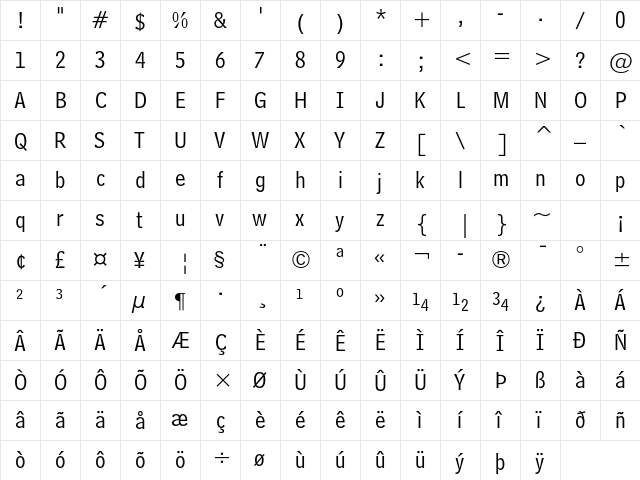
Bell Centennial Std Address
| Style | Address |
| Designer | Matthew Carter |
Design Context for Bell Centennial Std Typeface
Bell Centennial Std offers clean, dependable letterforms without strong stylistic allegiance, making it a practical choice for designers who need flexibility.